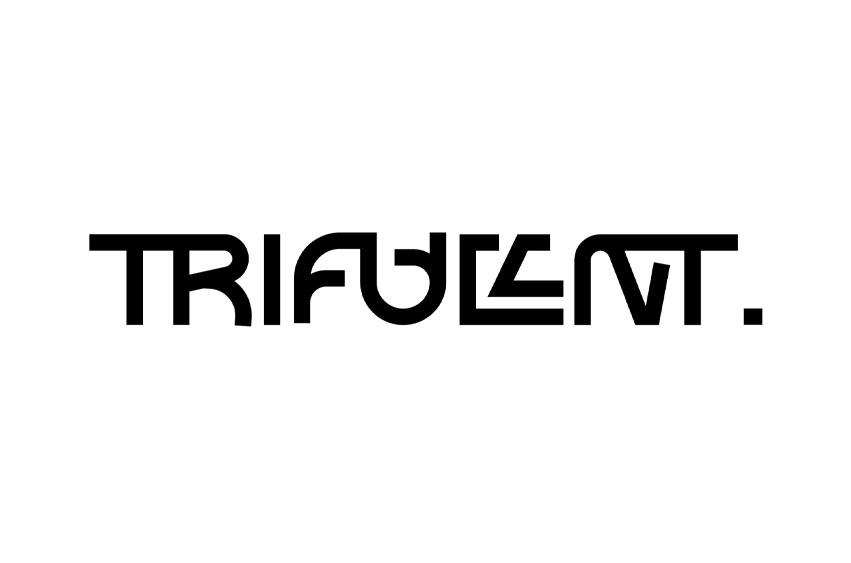
Trifullnt Font
Trifullnt Font is a futuristic geometric display font crafted with precision and modern aesthetics. Its bold shapes and structured forms reflect the essence of technology, innovation, and digital clarity. Designed for creatives who seek a forward-thinking visual identity, TRIFULLNT delivers a perfect balance between functionality and futuristic elegance.
Featuring 40 exclusive ligatures and expressive alternates, this typeface allows you to explore dynamic layouts and experimental compositions. Every letterform radiates a sense of innovation and visual intelligence, making it an ideal choice for technology branding, modern interfaces, and sci-fi-inspired designs.
• 40 Ligatures & Alternates
• Technology branding
• UI/UX and app design
• Cyberpunk & sci-fi posters
• Digital startups
• Futuristic headlines